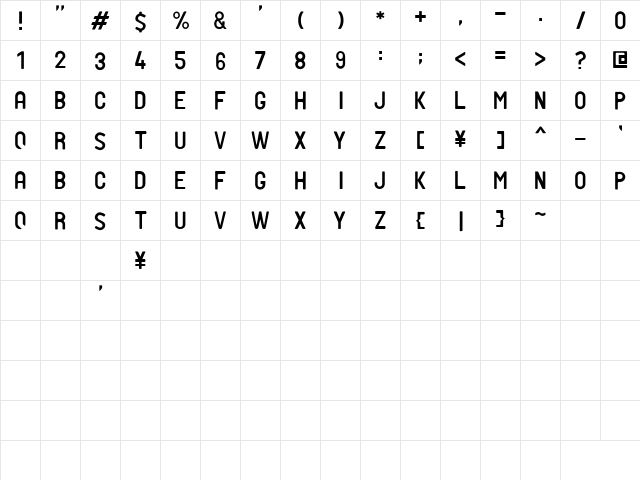
PTF NORDIC Rnd Lt Normal
Design Context for PTF NORDIC Rnd Lt Typeface
PTF NORDIC Rnd Lt is a composed and adaptable typeface that performs quietly and consistently across a wide range of design contexts. Its slender proportions lend an understated elegance to any composition.